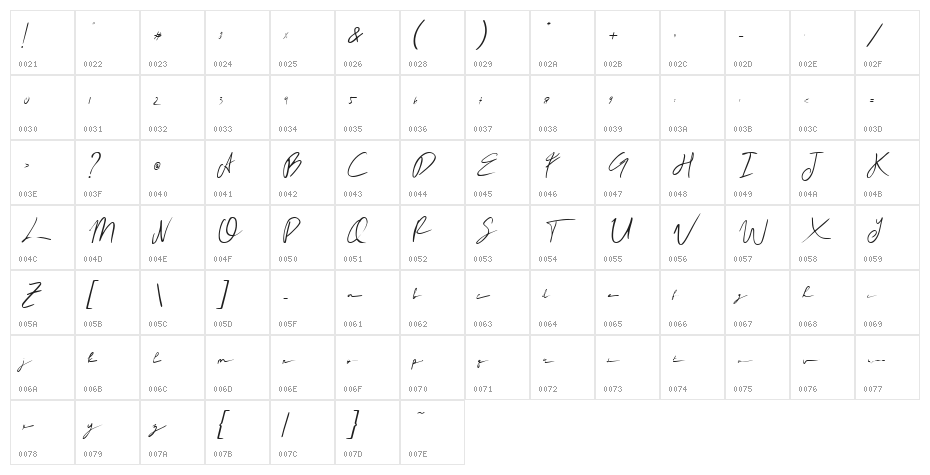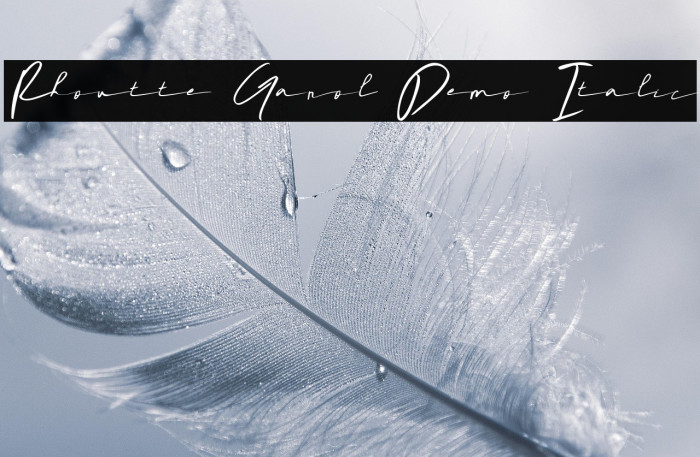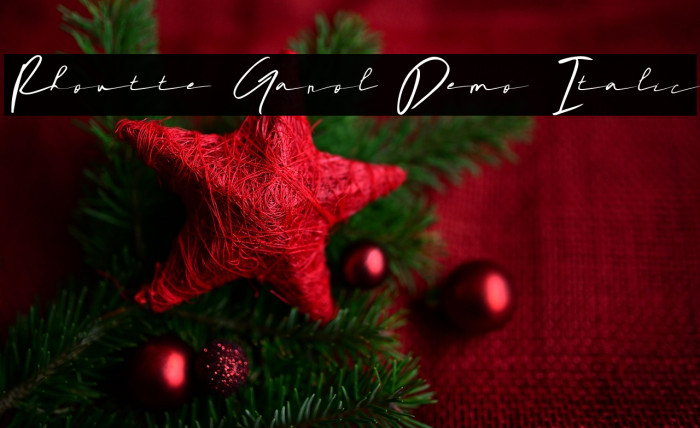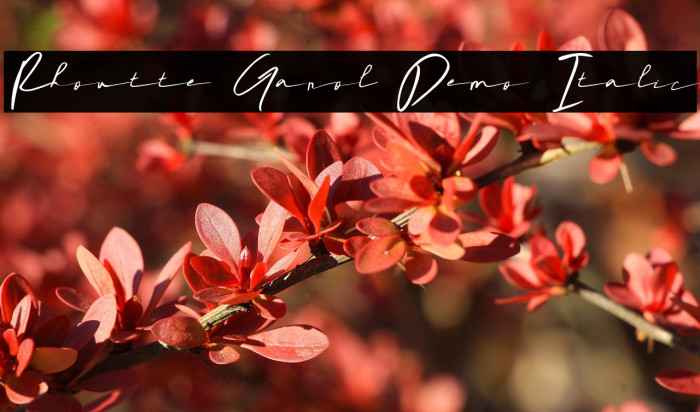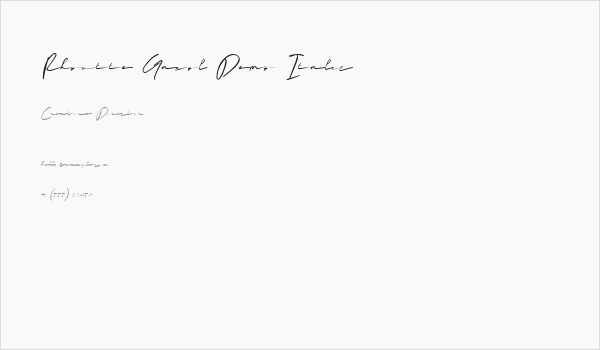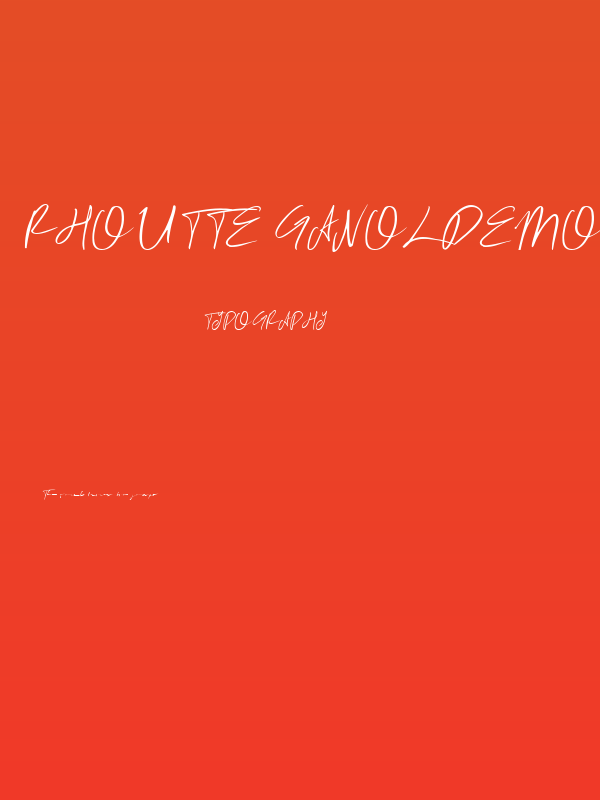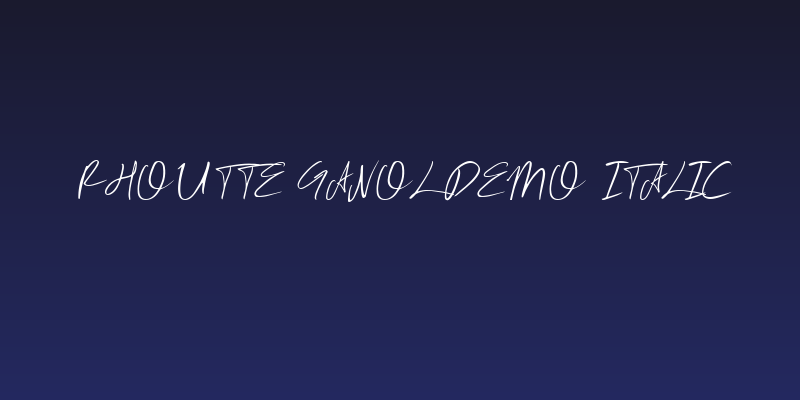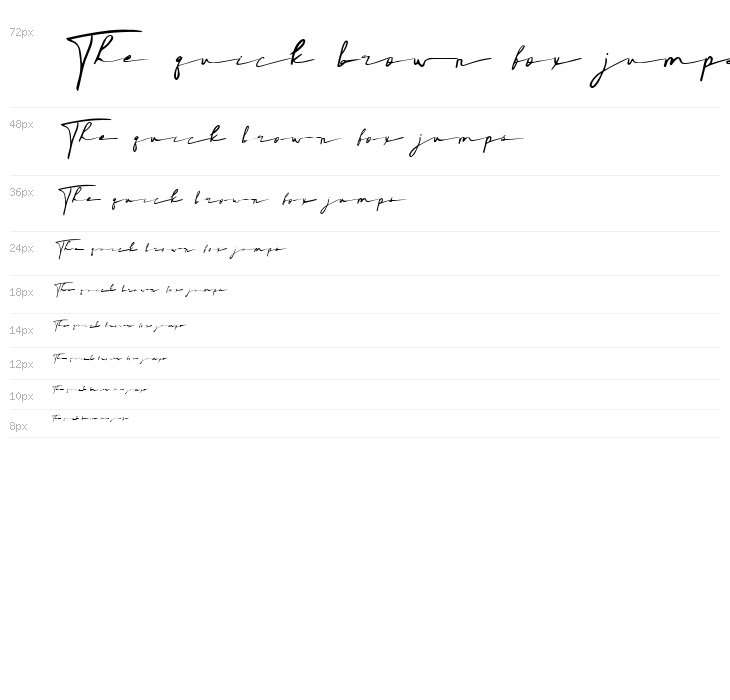
Rhoutte Ganol Demo Italic Font
Rhoutte Ganol Demo Italic Description
A flowing, cursive script font with a handwritten appearance, featuring elegant and elongated letterforms.
| Use Case | Logos, Invitations, Personal branding |
| Proposed Projects | Invitations, greeting cards, personal branding. |